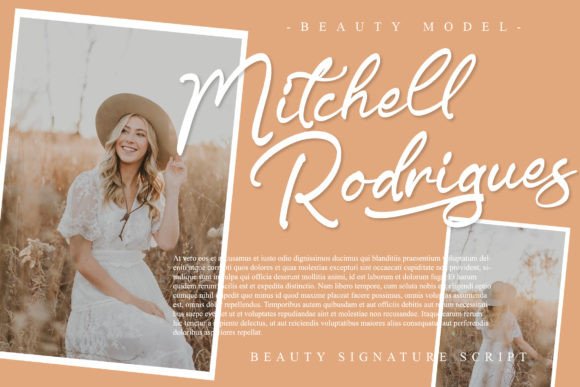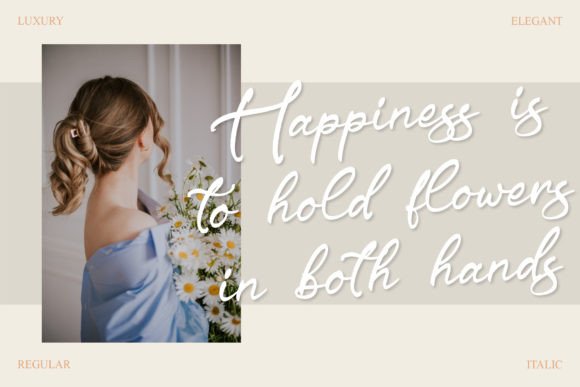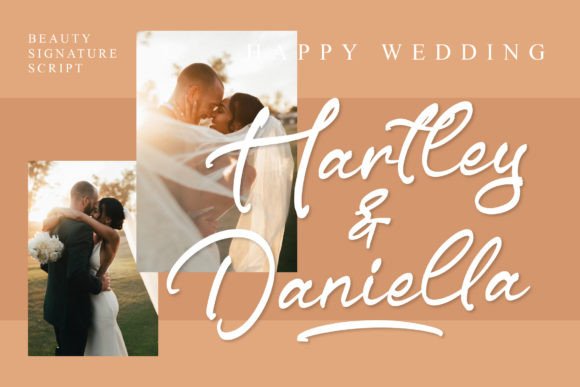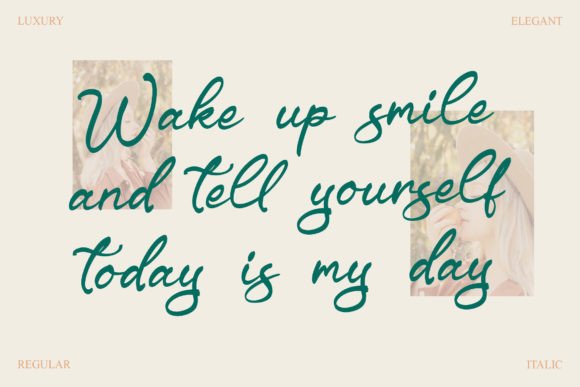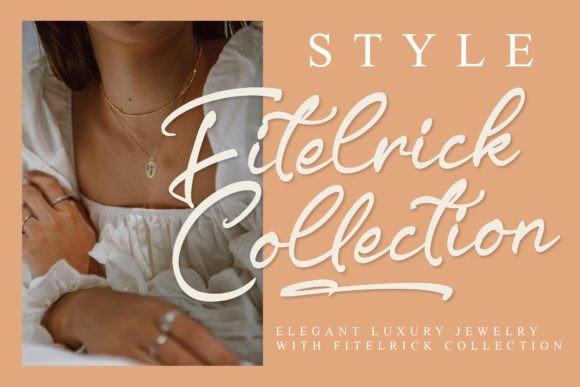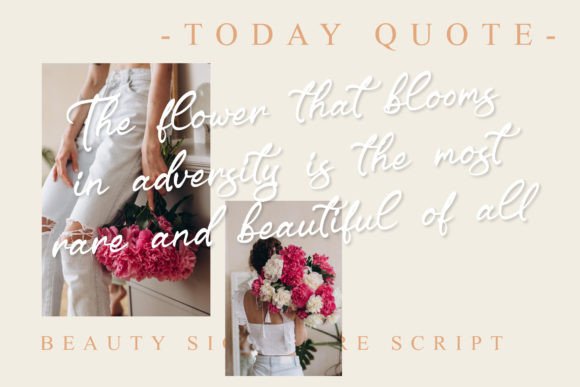
Discover the Elegance of Driscutty Font: Elevate Your Designs with Stylish Handwritten Flair
In the world of typography, fonts play a crucial role in conveying the tone and personality of a design. For designers and crafters looking to add a touch of elegance and sophistication to their projects, the Driscutty Font is an exceptional choice. This signature font boasts a stylish handwritten feel, characterized by its abundance of curves, swashes, lines, and more, making it perfect for a wide range of applications.
What Makes Driscutty Font Stand Out?
Driscutty Signature is not just another font; it’s a design element that can transform your work. The balance in every word is truly extraordinary, offering a harmonious and visually appealing aesthetic. Whether you’re working on greeting cards, magazines, headers, social media posts, or any other design project, Driscutty Font can add that special something that sets your work apart.
Key Features of Driscutty Font
- Stylish Handwritten Feel: Driscutty Font embodies the elegance of handwritten typography, bringing a personal and unique touch to your designs.
- Full of Curves, Swashes, Lines, and More: The font is rich in decorative elements, including curves, swashes, and lines, which can be used to add flair and personality to your text.
- Extraordinary Balance: Each word is carefully crafted to ensure balance and harmony, making the text not only readable but also a pleasure to look at.
- PUA Encoded: Driscutty Font is PUA (Private Use Area) encoded, which means you can easily access all the amazing glyphs and ligatures. This feature is particularly useful for designers who want to have full control over the typographic elements of their projects.
- Versatile: From greeting cards and magazines to headers and social media posts, Driscutty Font’s versatility makes it suitable for a wide range of design applications.
Applications of Driscutty Font
The versatility of Driscutty Font makes it an excellent choice for various design projects. Here are some of the areas where this font can make a significant impact:
- Greeting Cards: Add a personal touch to your greeting cards with Driscutty Font’s elegant and stylish handwritten feel.
- Magazines: Use Driscutty Font for headings and subheadings to give your magazine a sophisticated and professional look.
- Headers: Elevate your website or blog headers with Driscutty Font, making your site stand out and leave a lasting impression on visitors.
- Social Media: Stand out on social media platforms by using Driscutty Font for your posts and stories, adding a touch of elegance and personality to your content.
Why Choose Driscutty Font?
With so many fonts available, why choose Driscutty Font for your projects? The answer lies in its unique combination of style, versatility, and ease of use. Driscutty Font is not just a typeface; it’s a design solution that can elevate your work from ordinary to extraordinary. Its PUA encoding ensures that you have access to a wide range of glyphs and ligatures, allowing you to experiment and create designs that are truly unique.
Driscutty Font is a stylish and versatile signature font that can add a touch of elegance and sophistication to any design project. Its handwritten feel, rich in curves, swashes, lines, and more, along with its PUA encoding, makes it an excellent choice for designers and crafters looking to create visually appealing and unique designs. Whether you’re working on greeting cards, magazines, headers, or social media posts, Driscutty Font is sure to elevate your work and make it stand out.